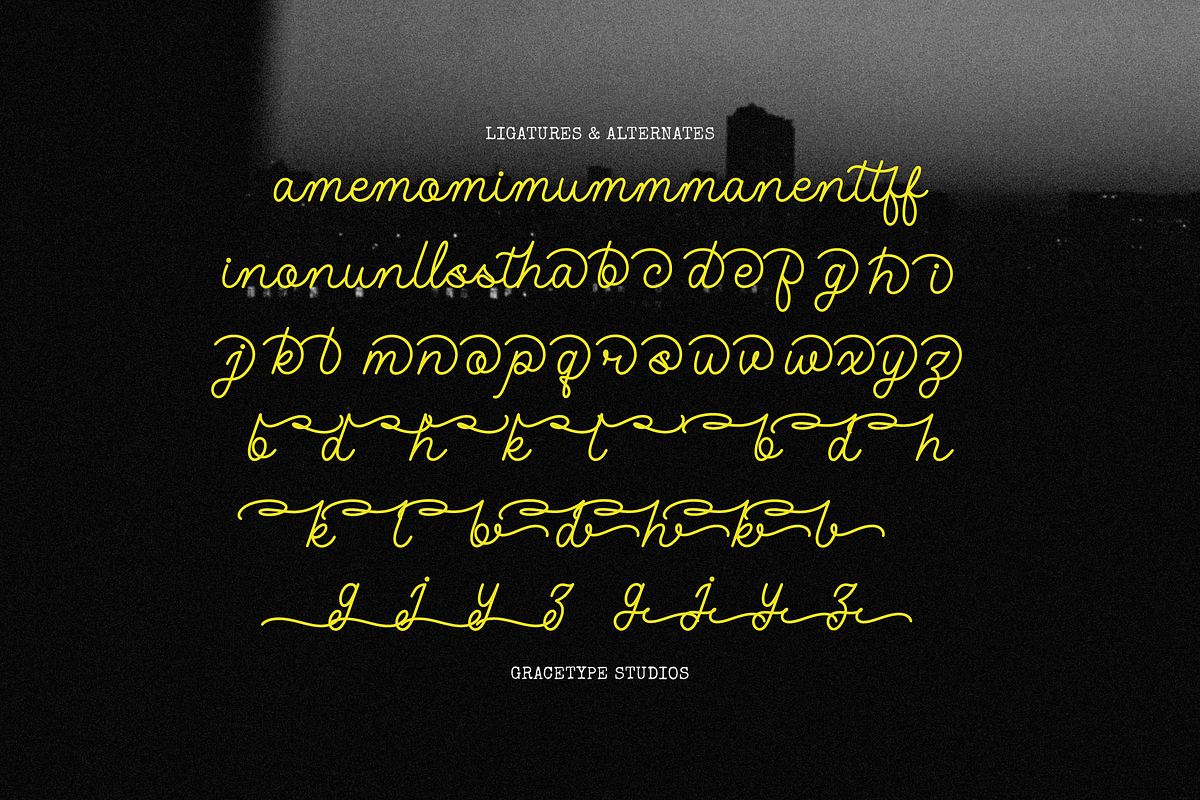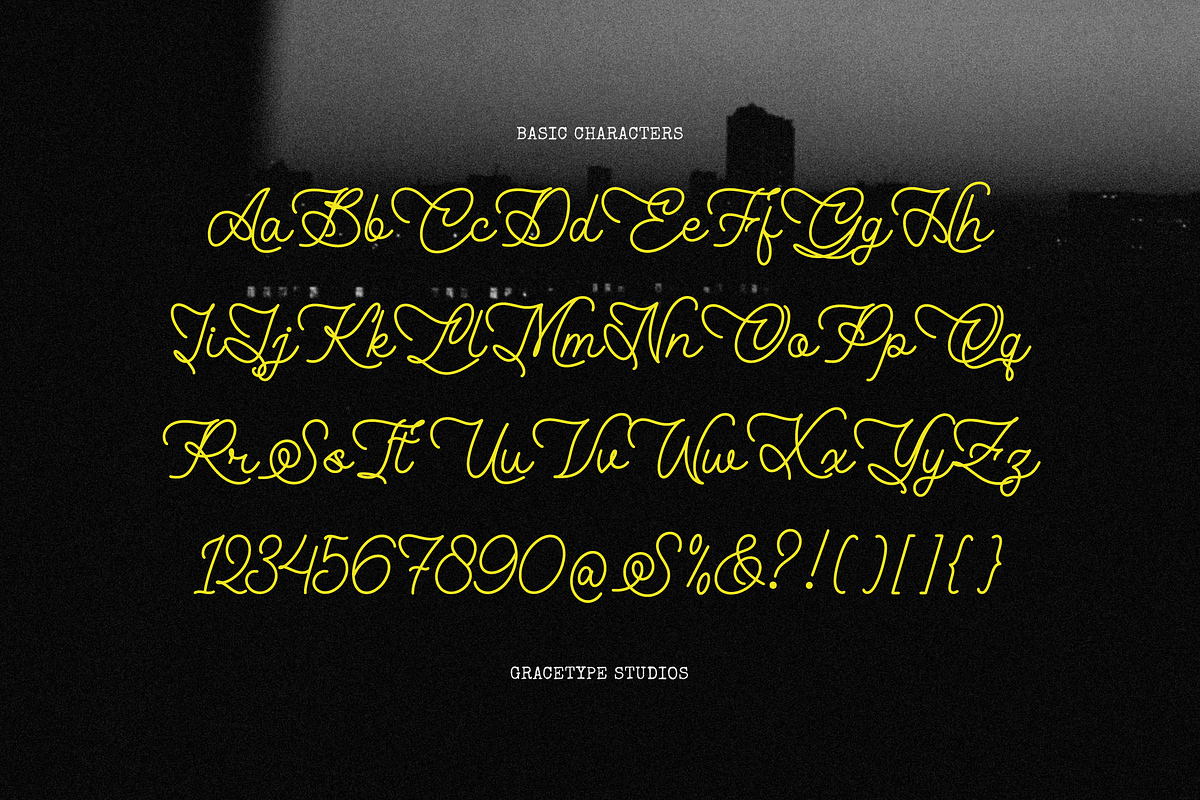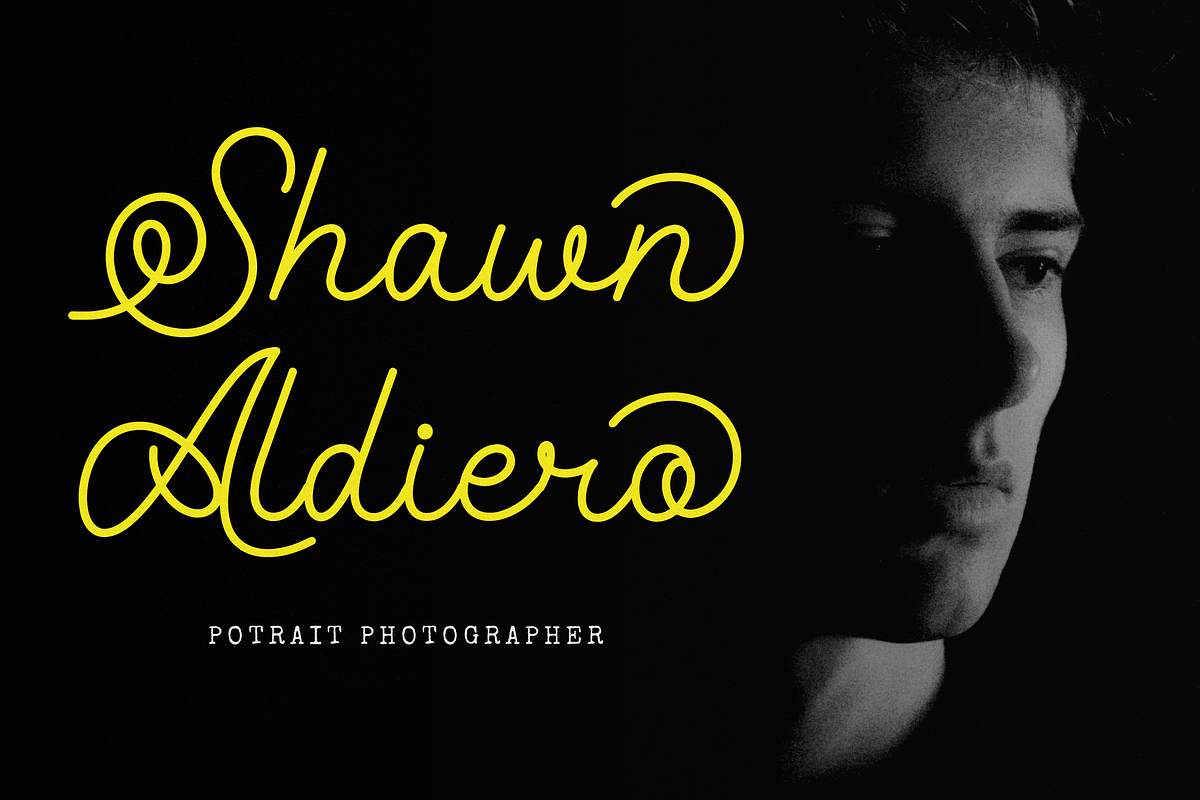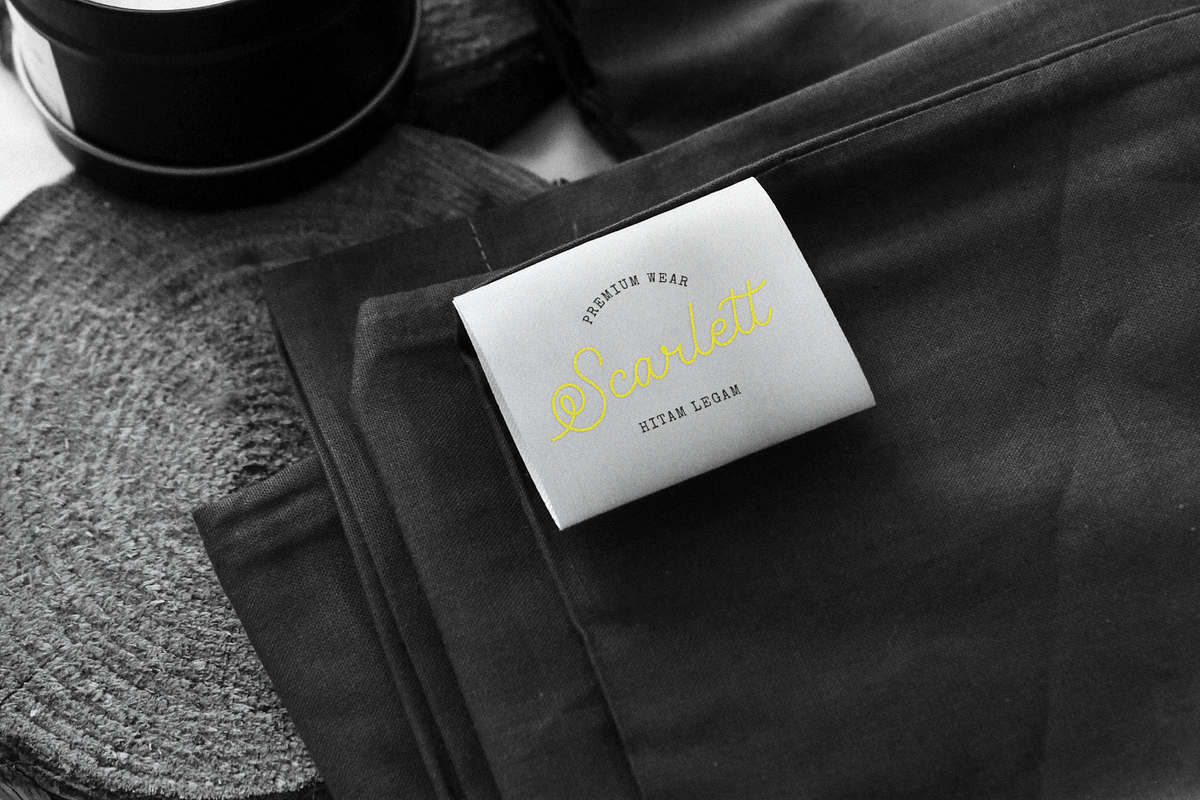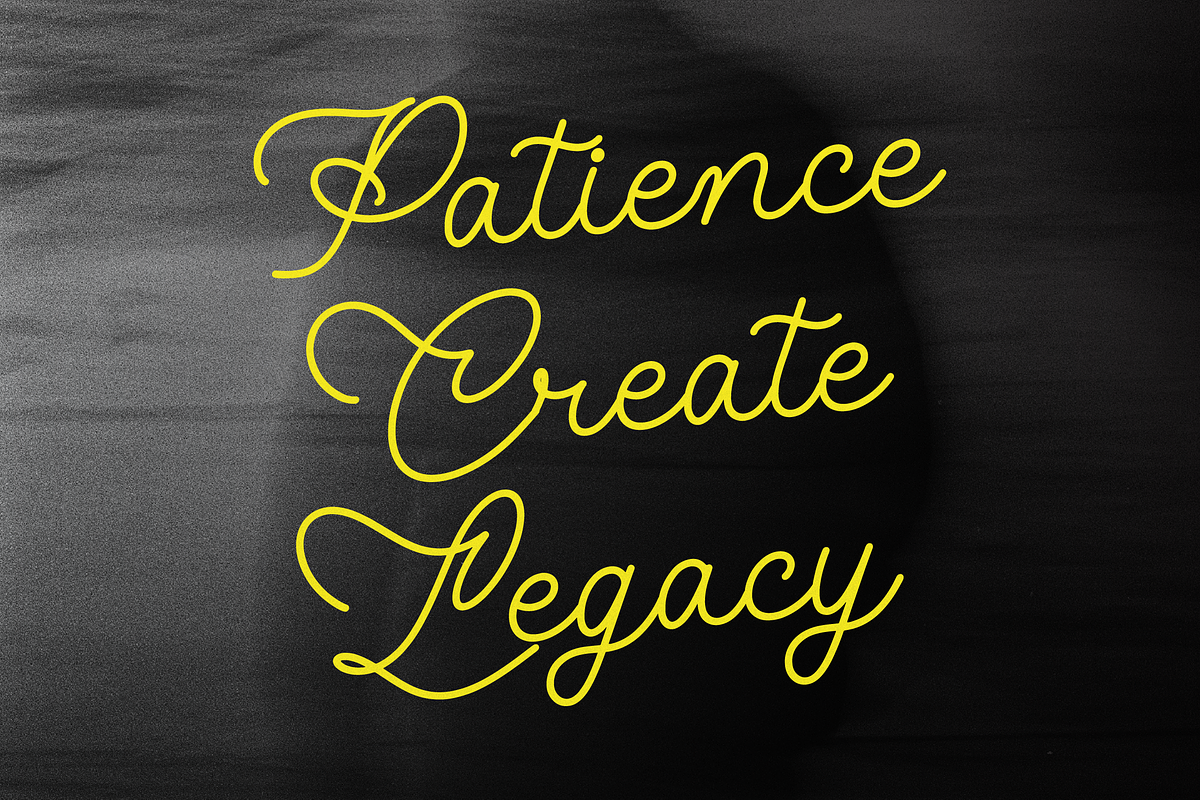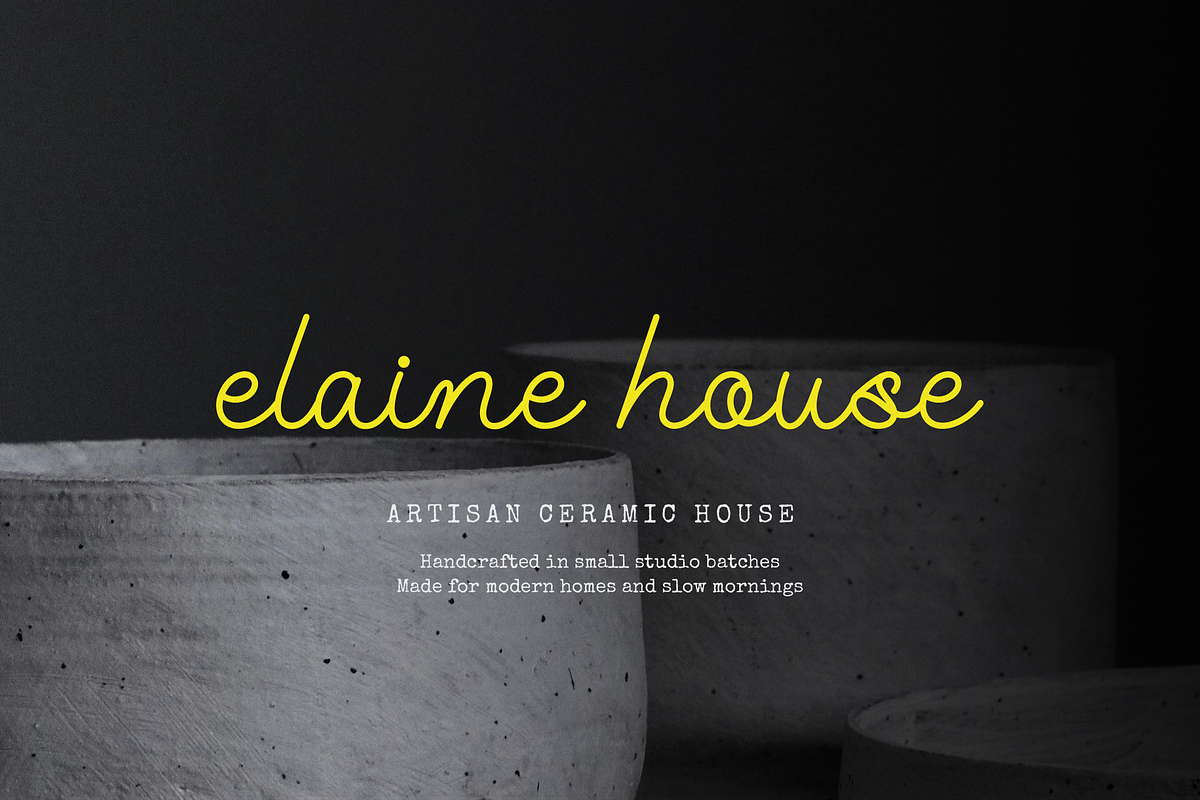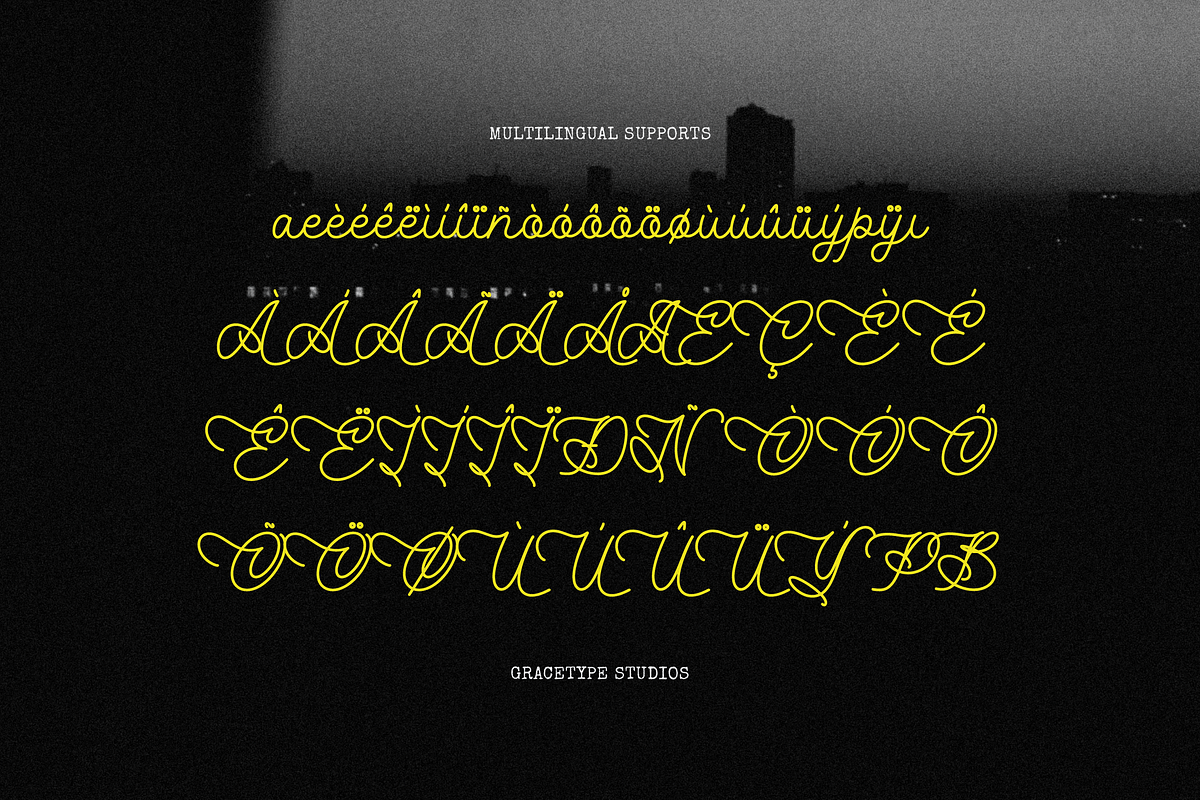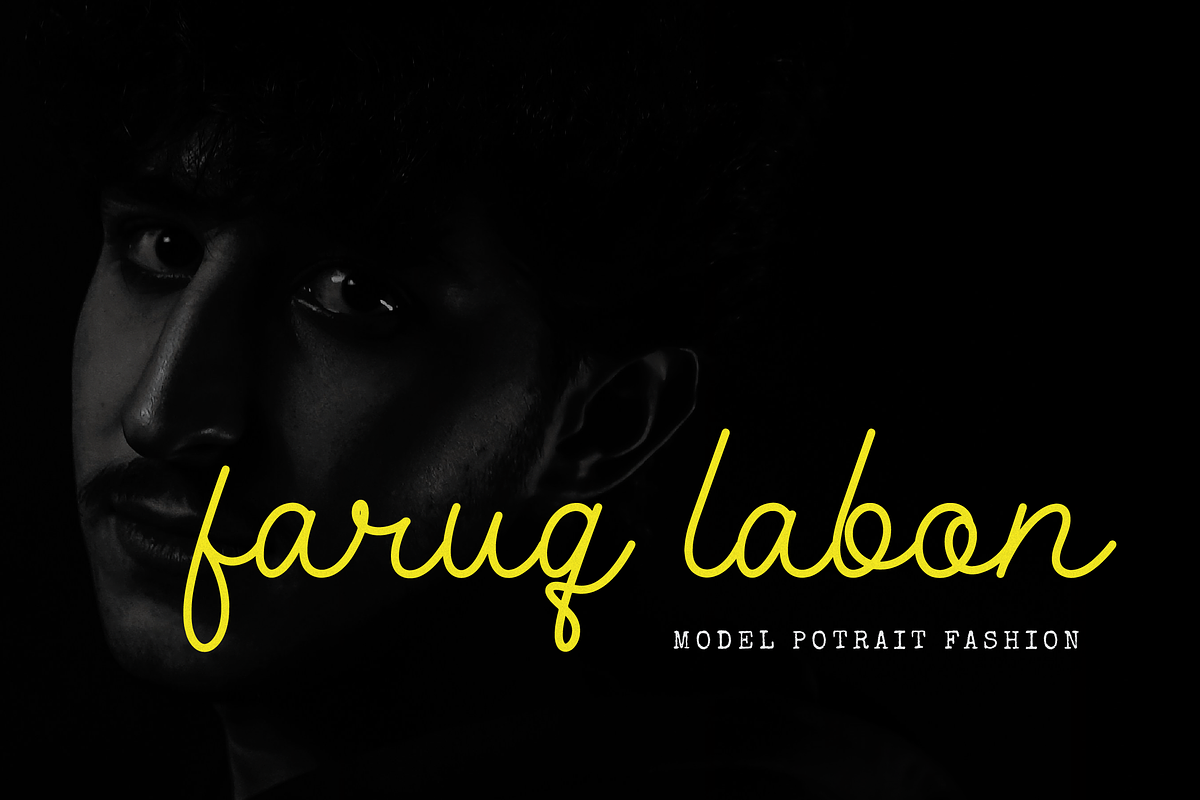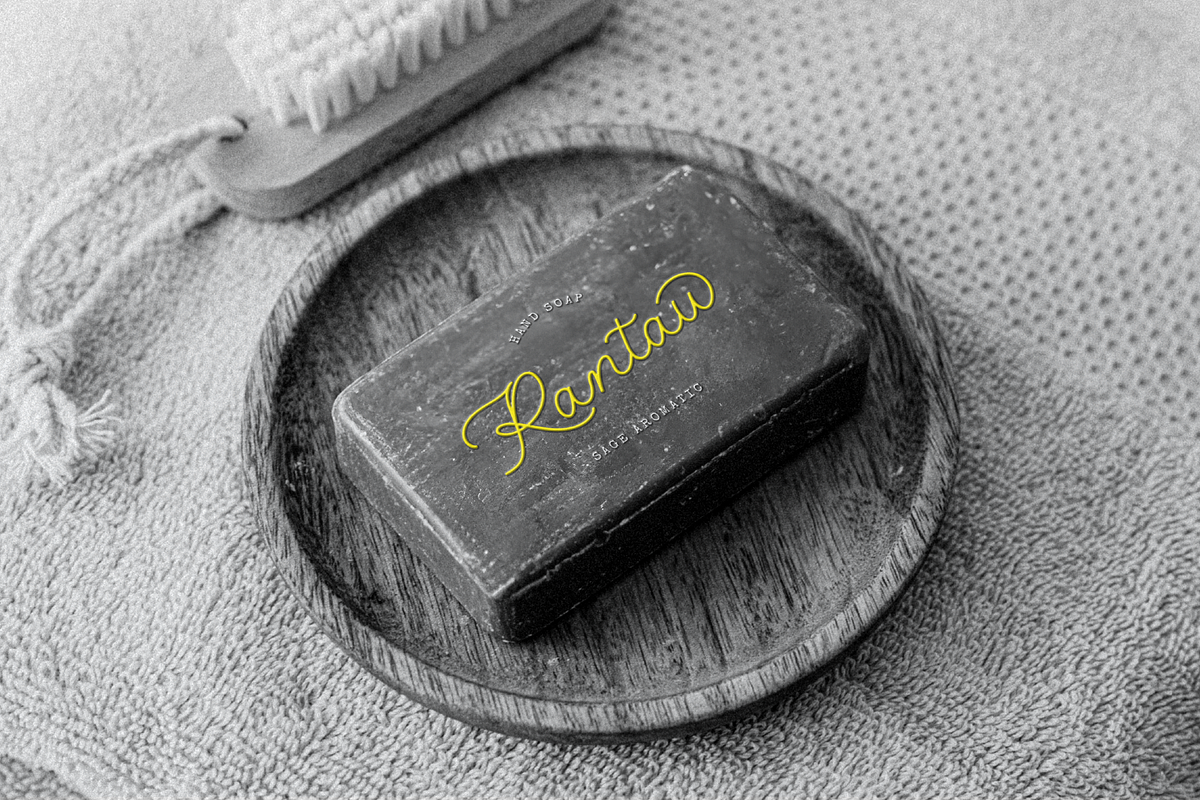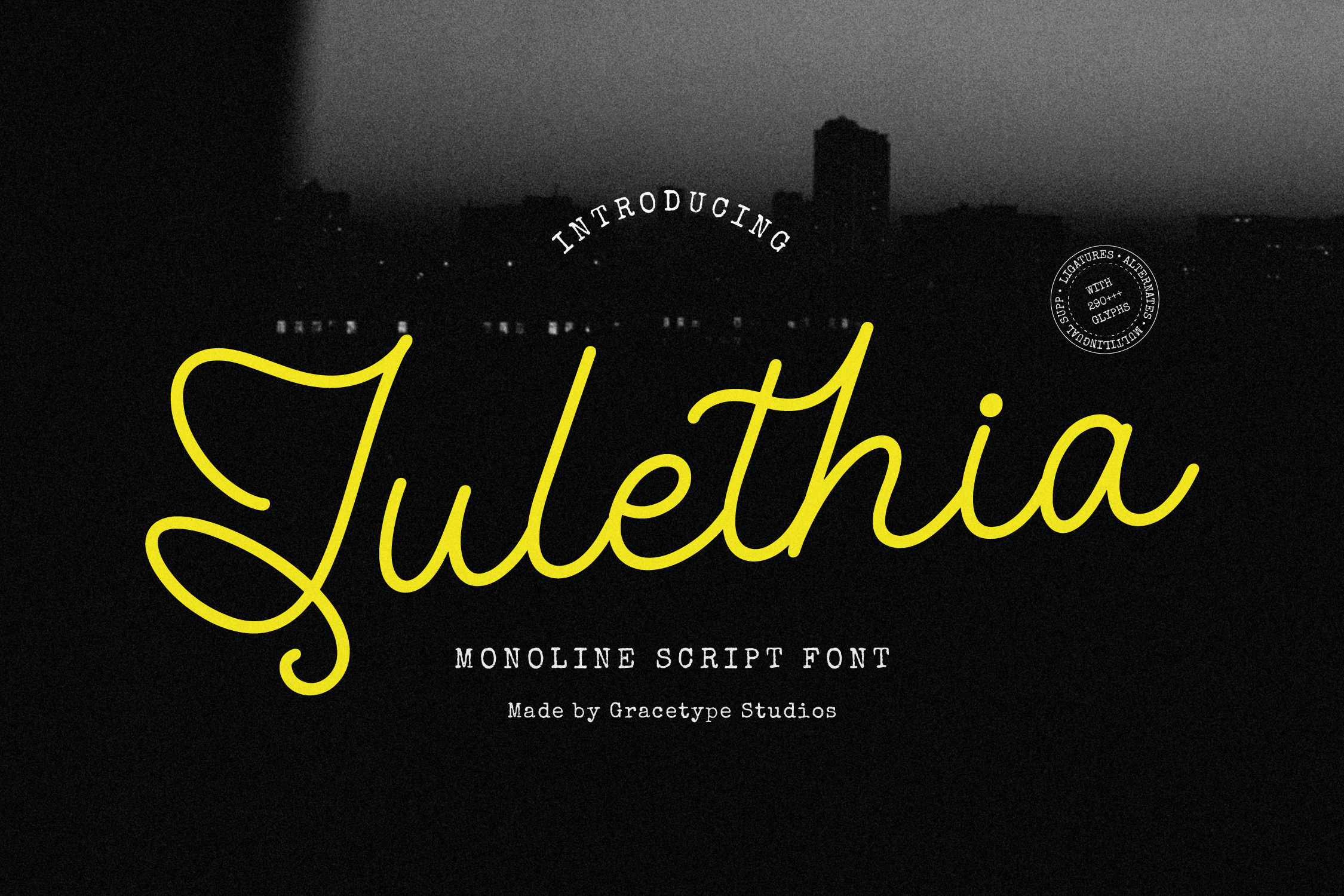
Julethia | Monoline Script Font
Julethia | Monoline Script Font, from Gracetypestudio, suitable for any projects such as: logos, branding projects, homeware designs, product packaging, mugs, quotes, posters, shopping bags, t-shirts, book covers, name card, invitation cards, greeting cards, label, photography, watermark, special events, and all your other lovely projects that need a Script taste.
Standard glyphs
Alternate and Ligature
Fonts include multilingual support